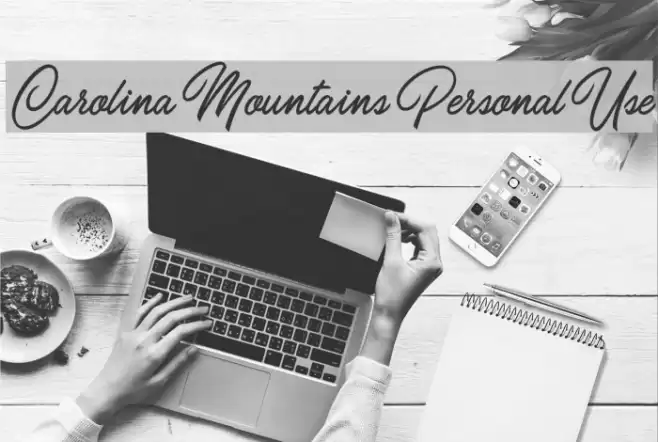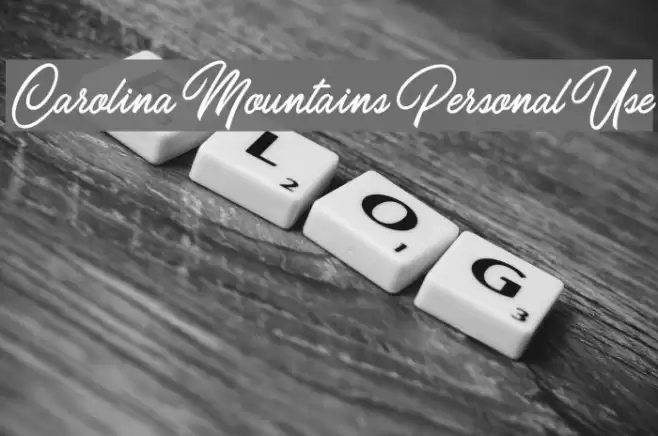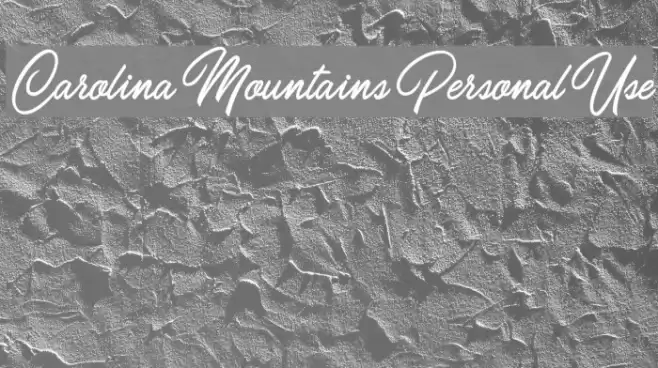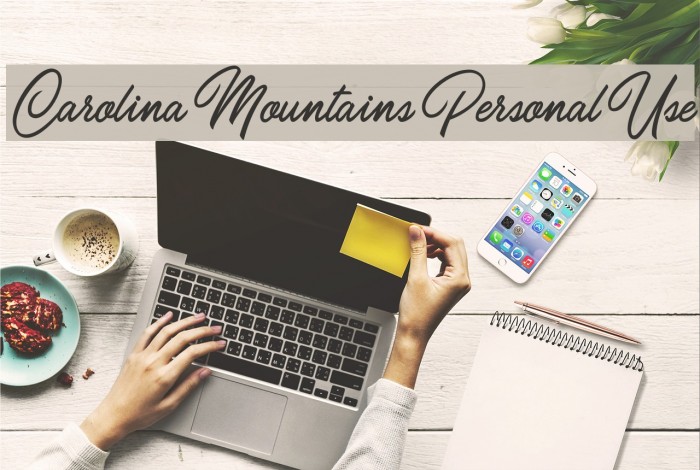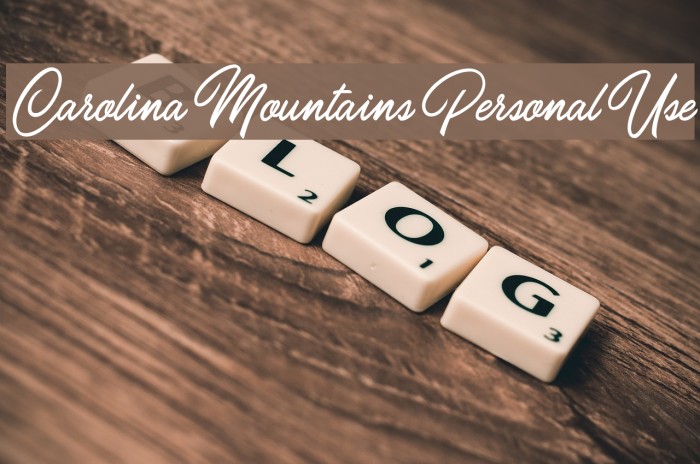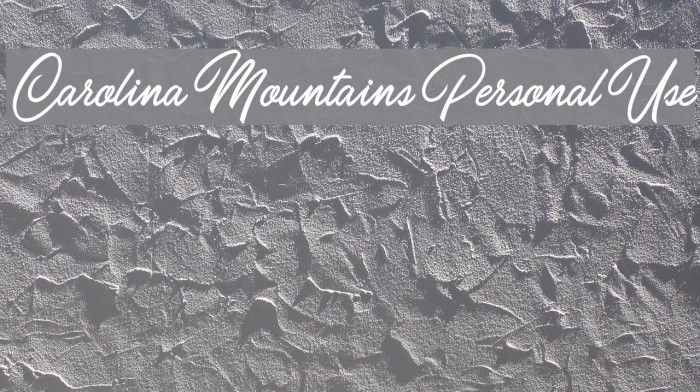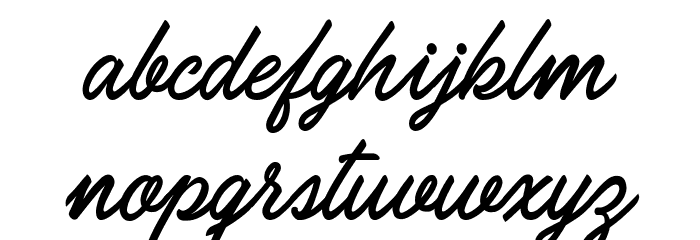
Carolina Mountains Personal Use Font
Carolina Mountains Personal Use Description
This font features an elegant and flowing script style, characterized by its smooth, cursive strokes and graceful curves. The uppercase letters are particularly ornate, with sweeping lines that give a sense of movement and sophistication. The lowercase letters maintain a consistent style, offering a harmonious blend with the uppercase. The font's design is reminiscent of traditional calligraphy, yet it maintains a modern touch, making it versatile for various design needs. It is well-suited for creating a personal and inviting feel, ideal for projects that require a touch of elegance and flair.
An elegant, flowing script font with a modern calligraphic style from Uncategorized fonts.
- Proposed Projects: Ideal for wedding invitations, greeting cards, branding, and elegant logo designs.
- Use Case: Logos, Invitations, Branding